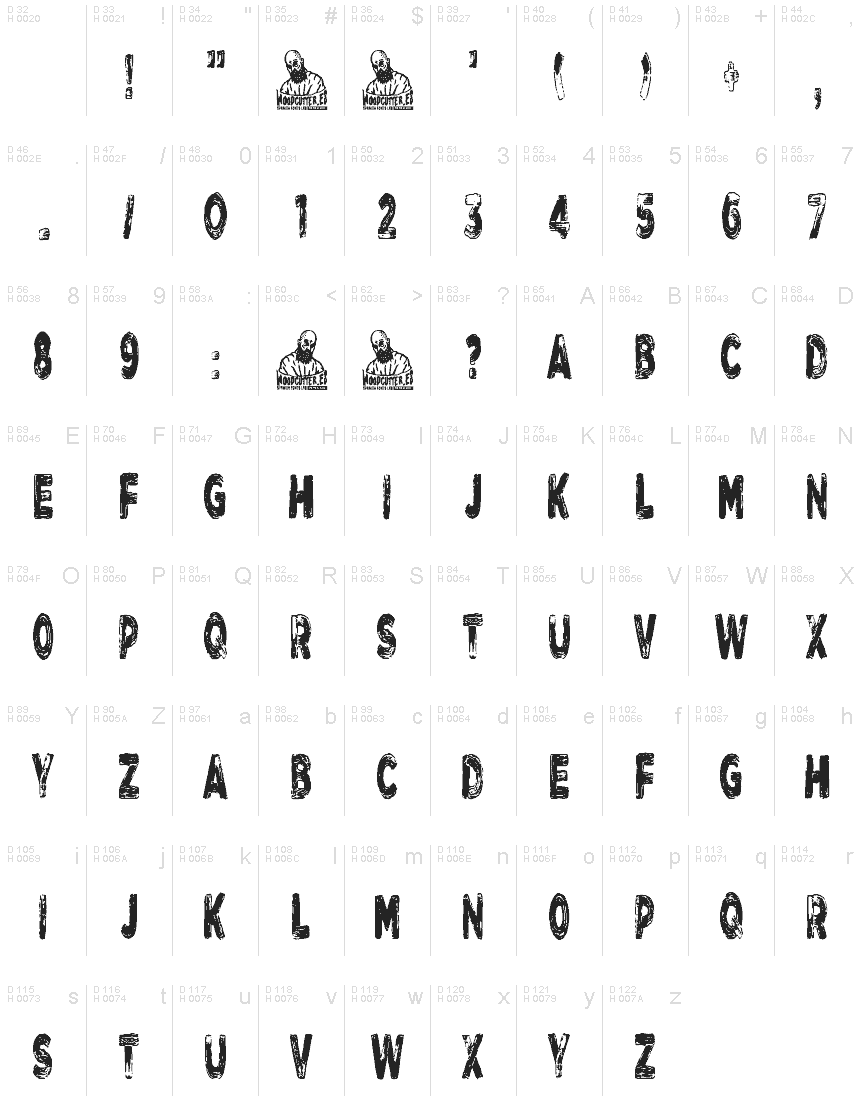
Red Lamp Pub
Red Lamp Pub font by Woodcutter is a free display font crafted in a rugged artistic style. With its textured look and expressive ambiance, it combines vintage flavors and distressed textures to create a conspicuous visual appearance. Furthermore, its bold letters appear condensed which allows users to use its effects even when they have limited space.
The impactful atmosphere of this design can be part of unusual transportation posters, apparel items, billboards, packaging designs, book cover pages, album covers for bands or individual artists music project. It can also upgraded menu headers for fast food restaurants or hotels by the beach with funky concepts.